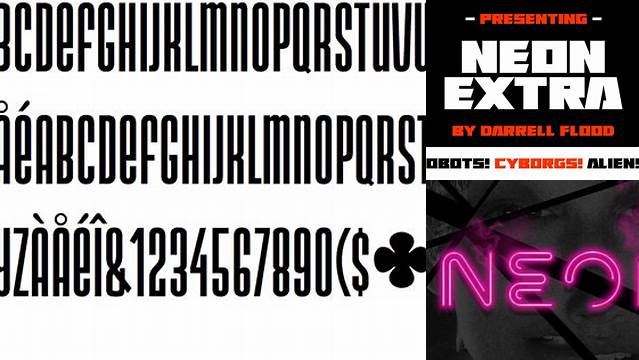
Neon Extra Condensed Font: Free Download Guide
Hey guys! Are you on the hunt for a font that screams modern and retro all at once? Look no further than the neon extra condensed font! This typeface is seriously cool, and it can add a unique flair to your designs. Whether you're working on a poster, website, or branding project, this font can give your work that extra edge. We're going to dive deep into everything you need to know about this awesome font, including where to find it for free and how to use it effectively. So, buckle up and let's get started!
What is Neon Extra Condensed Font?
Before we get into the nitty-gritty of free downloads, let's talk about what makes the neon extra condensed font so special. Imagine a font that’s tall, slender, and oozing with a vintage neon sign vibe – that's exactly what we're dealing with here. The condensed nature of the font means the letters are squeezed together, giving it a sleek and space-saving look, which is perfect for headlines and titles. The neon aspect adds a touch of retro-futurism, making it a standout choice for designs that need to pop. Using this font can instantly bring a sense of energy and excitement to any project, making it a favorite among designers looking for that perfect blend of classic and contemporary styles. Think 1980s arcade meets 2020s digital design – that’s the sweet spot this font hits. The bold strokes and clean lines ensure readability while maintaining its unique character, making it versatile enough for various applications.
The Allure of Condensed Fonts
Condensed fonts, like our beloved neon extra condensed font, hold a special place in the world of typography. Their primary appeal lies in their ability to pack more characters into a limited horizontal space. This makes them incredibly useful for headlines, titles, and anywhere space is at a premium. Imagine trying to fit a lengthy title onto a poster – a regular-width font might make it look cramped and cluttered, but a condensed font elegantly solves this problem. Beyond practicality, condensed fonts have a distinct visual presence. They often convey a sense of modernity and sophistication, making them a go-to choice for designs aiming for a sleek, contemporary feel. The neon extra condensed font takes this a step further by adding a touch of retro flair, blending the best of both worlds. Whether you're designing a website, a magazine layout, or a poster, understanding the power of condensed fonts can significantly enhance your design's impact. They offer a balance between functionality and aesthetics, ensuring your message is both readable and visually appealing. Furthermore, the vertical emphasis of condensed fonts can create a striking visual hierarchy, drawing the viewer's eye exactly where you want it.
Why Choose Neon Style Fonts?
Neon style fonts, including the neon extra condensed font, have a unique charm that sets them apart. The aesthetic of neon fonts is deeply rooted in nostalgia, evoking images of vintage signs, retro diners, and classic movie posters. This retro vibe can instantly add character and personality to your design, making it stand out from the crowd. But neon fonts aren’t just about the past; they also have a modern edge. The bright, glowing effect associated with neon gives a sense of energy and excitement, making these fonts ideal for designs that need to grab attention. Think about using a neon extra condensed font for a music event poster or a website banner – the vibrant style can create an immediate impact. Moreover, neon fonts can be incredibly versatile. While they’re perfect for retro-themed projects, they can also be used in contemporary designs to add a touch of contrast and visual interest. The key is to use them strategically, balancing their boldness with other design elements to create a cohesive and striking look. The neon extra condensed font, with its unique combination of condensed form and neon style, offers a compelling option for designers looking to make a statement.
Using Neon Extra Condensed in Design Projects
Now for the fun part: actually using your neon extra condensed font in your design projects! This font, with its unique blend of retro and modern aesthetics, can be a total game-changer if used effectively. Think of it as a statement piece – it's bold, eye-catching, and perfect for grabbing attention. One of the best ways to use a neon extra condensed font is in headlines and titles. Its tall, slender form is ideal for creating impact in limited spaces. Imagine a poster for a music event, a website header, or even a logo – this font can add that extra spark. However, because it's so distinctive, it's best used sparingly. Overusing it can make your design feel cluttered and overwhelming. Pair your neon extra condensed font with simpler, more neutral fonts for body text to create balance and readability. Also, consider the color palette of your design. Neon fonts often look fantastic against dark backgrounds, which enhance their glowing effect. Experiment with different colors and effects, like adding a subtle glow or shadow, to really make the font shine. Whether you're working on a branding project, a poster, or a website, the neon extra condensed font can be a powerful tool in your design arsenal.
Pairing Neon Fonts with Other Typefaces
The secret to killer typography is often in the pairings. You've got your neon extra condensed font, which is bold and attention-grabbing, but what do you pair it with to create a balanced and visually appealing design? Think of it like this: your neon font is the star of the show, and the other typeface is the supporting actor. You want something that complements, not competes. A common approach is to pair a neon extra condensed font with a clean, sans-serif font for body text. This creates a clear visual hierarchy, making the headline pop while ensuring the body text is easy to read. Fonts like Helvetica, Arial, or Open Sans are excellent choices. Another option is to pair it with a simple serif font, like Times New Roman or Georgia. This can create a more classic and sophisticated look, especially if you're aiming for a retro vibe with a modern twist. The key is contrast – you want the neon extra condensed font to stand out, so avoid pairing it with another equally bold or decorative font. Balance is crucial, so choose a typeface that is understated and versatile. Experiment with different combinations to see what works best for your project. Remember, typography is an art, and the right pairing can elevate your design to the next level.
Neon Extra Condensed Font: Conclusion
So there you have it, guys! We've journeyed through the vibrant world of the neon extra condensed font, exploring its unique characteristics, where to find it, how to use it, and everything in between. This font is a true gem for designers looking to add a touch of retro-futuristic flair to their projects. Whether you're working on a website, a poster, a logo, or social media graphics, the neon extra condensed font can help you create designs that stand out and grab attention. Remember, the key to using this font effectively is to understand its strengths and limitations. Pair it with the right typefaces, consider the color palette, and always check the license before using it in your work. By avoiding common mistakes and embracing creative experimentation, you can unlock the full potential of this font. As we've seen, the neon extra condensed font is more than just a typeface; it's a design statement. It evokes nostalgia, exudes energy, and adds a touch of personality to any project. So go ahead, download a neon extra condensed font, unleash your creativity, and bring your design visions to life. The world of typography is vast and exciting, and this font is just one of the many tools you can use to create stunning and impactful designs. Happy designing, and may your typography always shine bright!